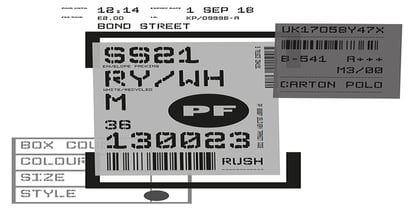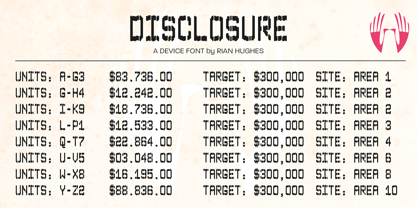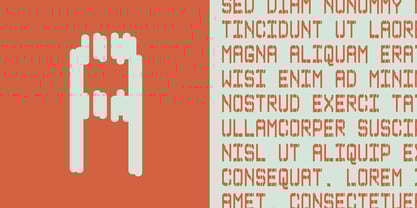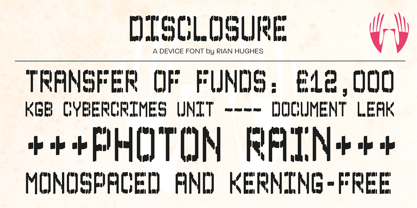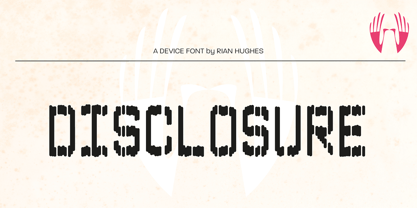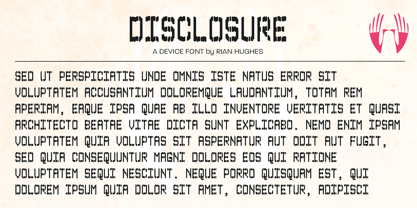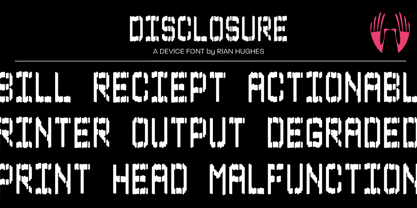
Disclosure
von Device
Die Schriftfamilie Disclosure wurde von Rian Hughes entworfen und von Device veröffentlicht. Disclosure enthält 1 Stile.
Disclosure is suggestive of low-grade digital output, screen displays, fax machines, or high-speed data transfer. It is missing vertical sections, perhaps due to a faulty print head or signal degradation. It is intentionally monospaced — each letter has the same width, like a typewriter — and unkerned. Suitable for uses where an unfussy urgency and drama is required. Developed from the 112 Hours numbers-only font, Throughput.